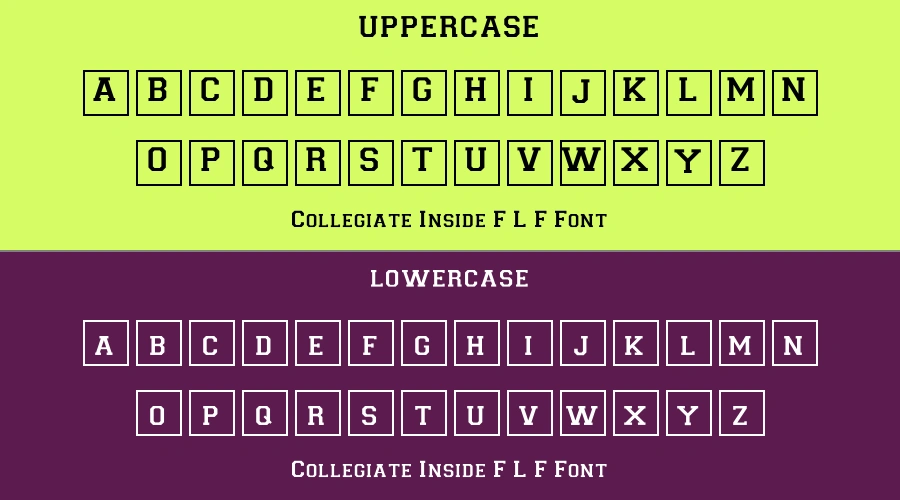
About Collegiate Inside F L F Font
Collegiate Inside F L F Font represents a sophisticated approach to type design, balancing engineered curves with emotional connection. Perfect for logo design, this font family showcases impressive originality and cultural relevance throughout its character set. Designers appreciate its versatility and reliability.
Designers will appreciate nuanced touches including harmonic curves and small caps, adding sophistication to any project. These features become apparent in brand logos, where microfilm readability matters most. The careful treatment of terminal style and artistic influences ensures optimal performance.